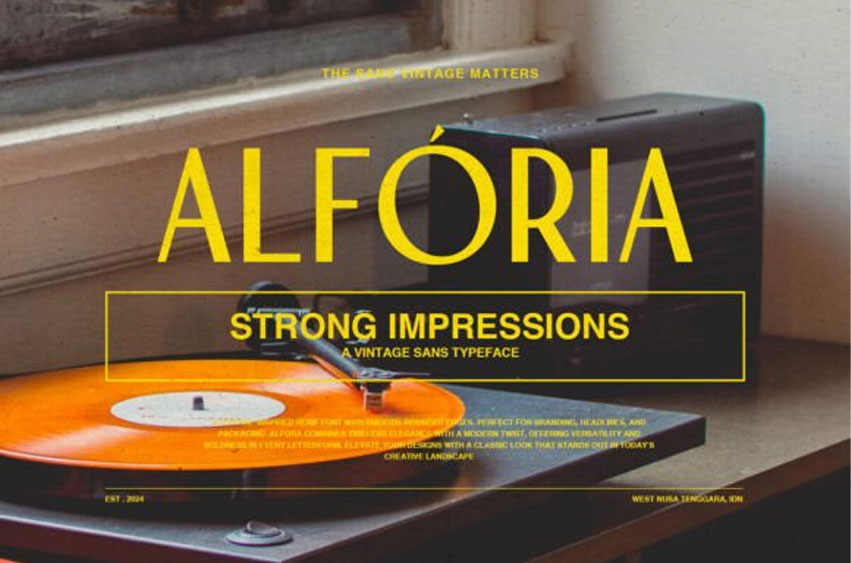
Alforia Font is a vintage sans with a classic and tall style. You can use this font for any purposes, such as posters, movie posters, quotes, and branding that need retro and vintage looks.
Alforia also supports multiple languages.